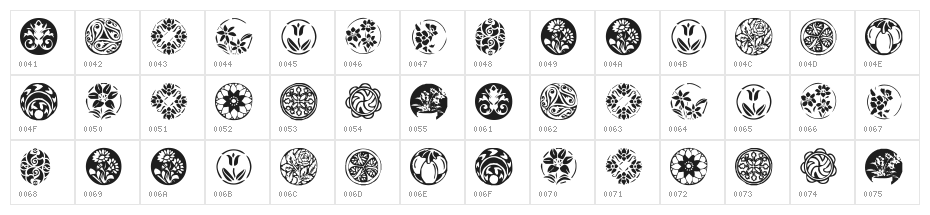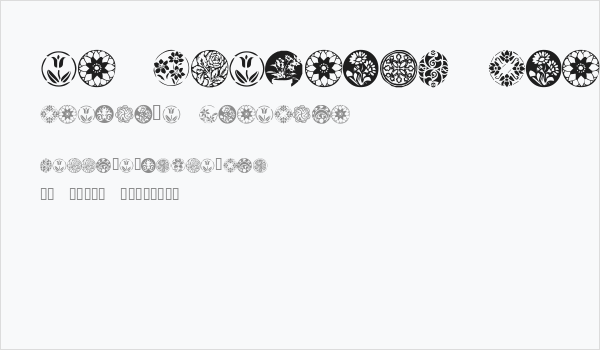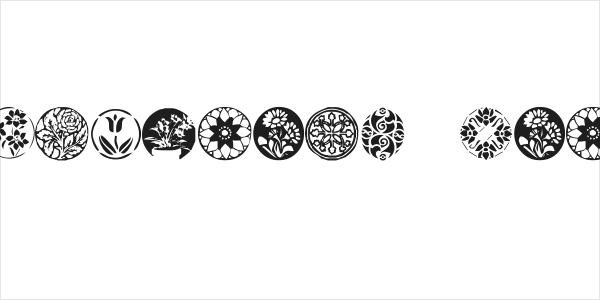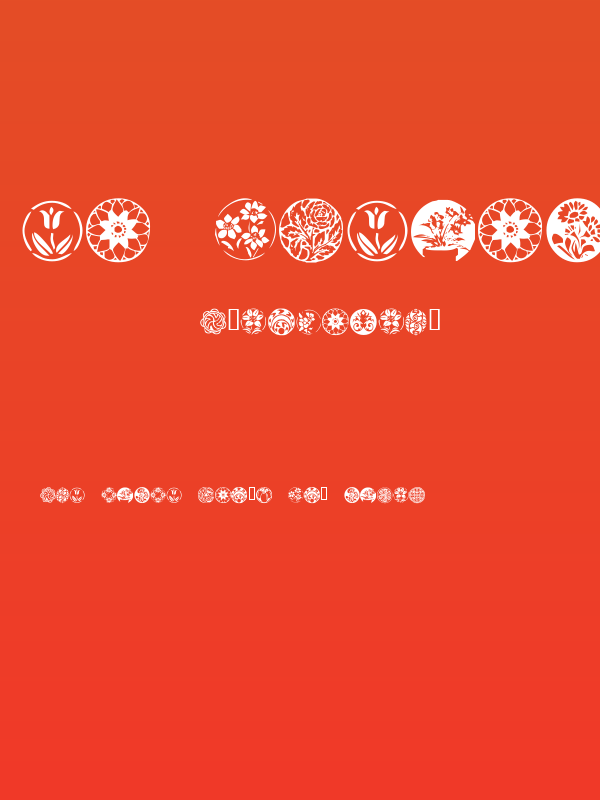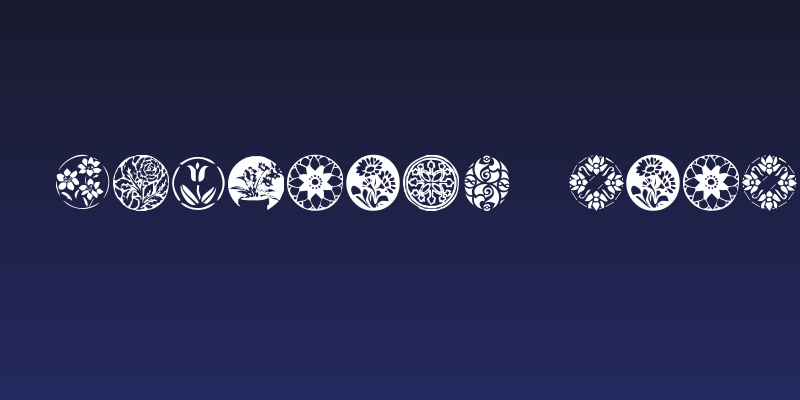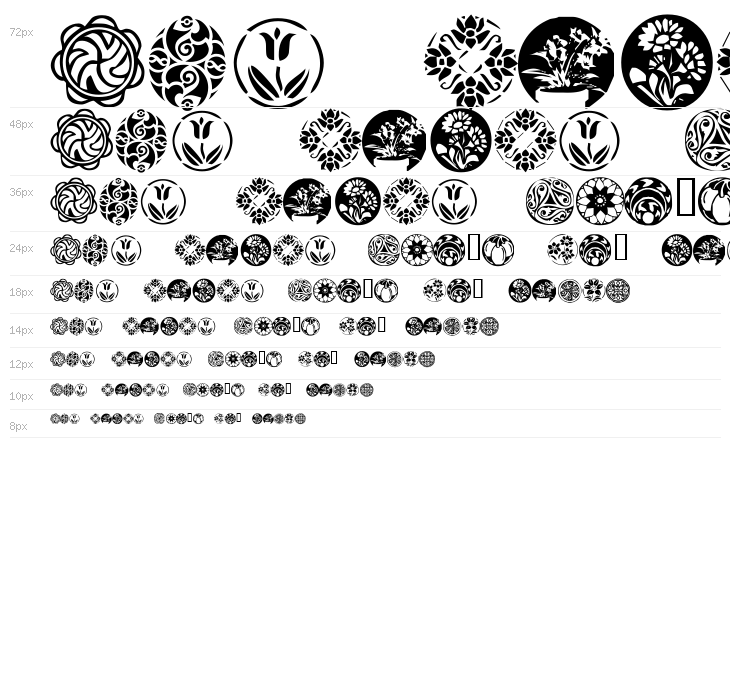
KR Fleurish Circle Font
KR Fleurish Circle Description
This collection features a series of intricate circular designs, each adorned with floral and ornamental motifs. The designs are highly decorative, showcasing a blend of symmetrical and asymmetrical patterns that evoke a sense of elegance and sophistication. The use of black and white contrast enhances the intricate details, making each circle stand out with its unique floral arrangement. These designs are reminiscent of classic ornamental art, suitable for adding a touch of vintage charm to various projects.
Overall StyleVintage
Use CaseDecorative elements, Art prints, Branding
Proposed ProjectsIdeal for use in decorative prints, textile designs, stationery, branding elements, and digital artwork.